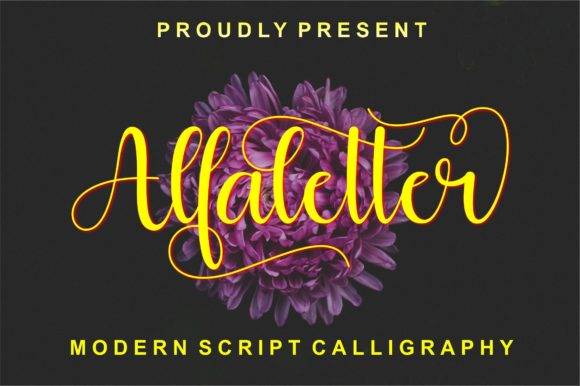
Alfaletter Font for Crafting, Logos and Print Projects
This is a casual handwritten font designed for crafting, logo creation, and stylish print materials. Alfaletter brings a relaxed yet refined aesthetic to projects that need a personalized or custom-made feel. Perfect for both digital and print applications, this font captures the essence of creativity and individuality. With its fluid lines and diverse character set, it stands out as the go-to angker font for creative projects that require a unique touch. Whether you're designing invitations, business cards, or social media graphics, Alfaletter ensures your work will leave a lasting impression. In addition to its versatility, Alfaletter pairs beautifully with other typefaces, allowing for a harmonious balance in any design. For those seeking alternatives, the arberus font for creative projects also offers a unique and eye-catching aesthetic that can complement Alfaletter perfectly. Embrace your creativity and explore these fonts to elevate your craft and make each piece truly one-of-a-kind.
As a font entity, it fits seamlessly into design workflows that require warmth, authenticity, and visual charm. Whether you're branding a product, designing a label, or personalizing a gift, Alfaletter delivers character.
Ideal for both hobby creators and professional designers seeking a handwritten look with polish.
- Logos and brand identity assets
- Printed invitations and greeting cards
- Labels, stickers, and tags
- Printable wall art and signage
- Handcrafted merchandise and decor
- Authentic handwritten style
- Ideal for crafting and branding
- Works with print, cut, and digital applications
- Balanced for readability and charm
Q: What style is Alfaletter?
A: Alfaletter is a clean, handwritten script font designed to bring a casual and creative look to logos and printed designs.